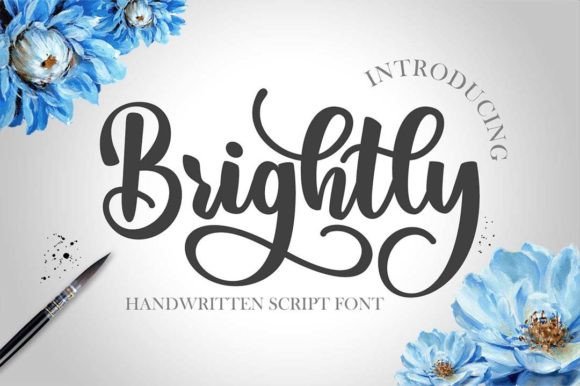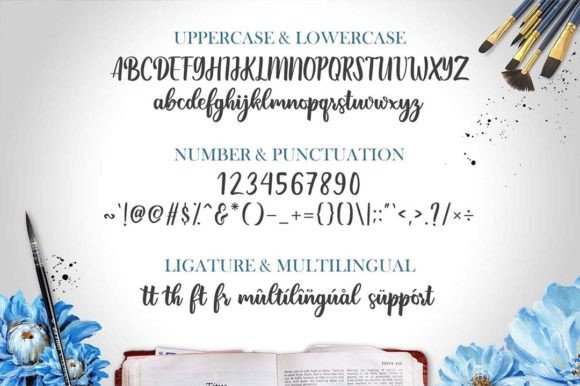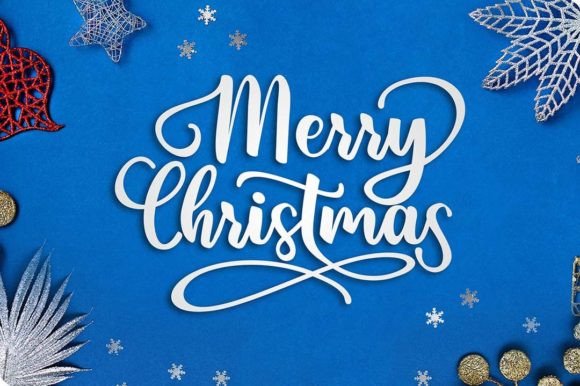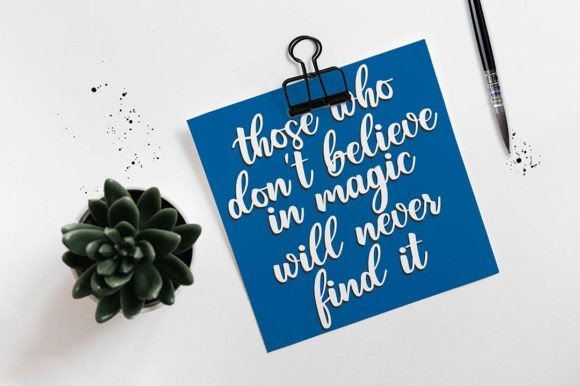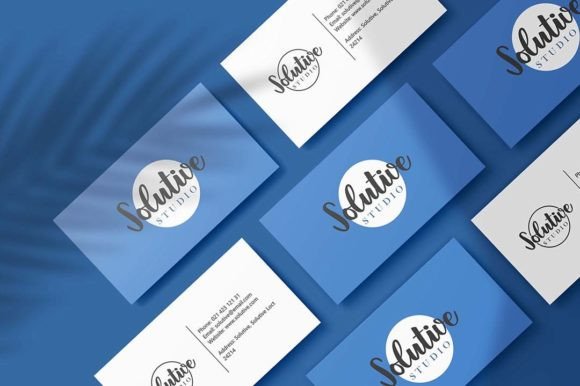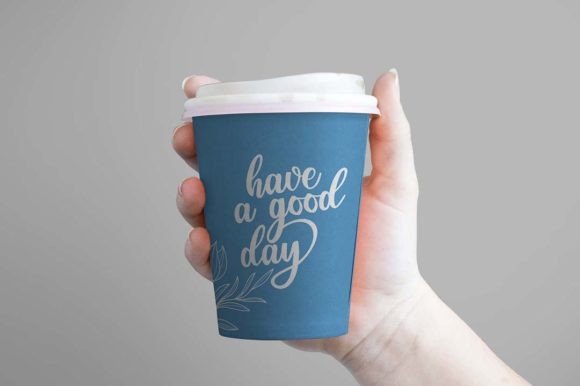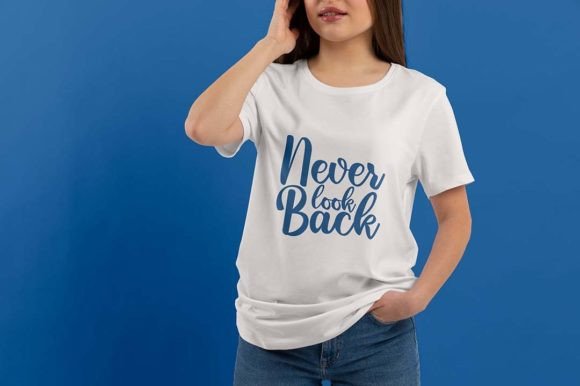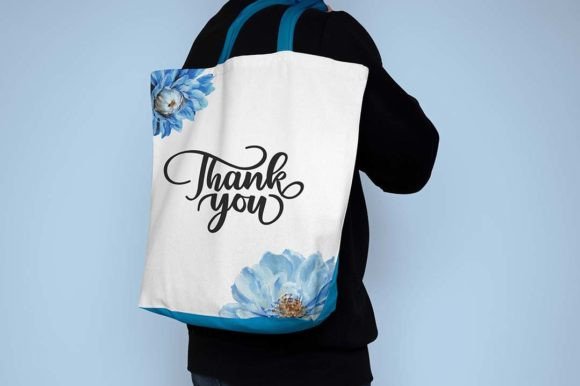
Brightly Font
About Brightly Font
“Brightly” is a romantic and lovely handwritten script font that showcases beautiful curves in every letter. This font radiates a sense of romance and elegance, making it a perfect choice for various design applications. Whether you’re working on wedding invitations, headlines, corporate or brand identity, posters, magazines, books, YouTube, Instagram, or any creative project, “Brightly” adds a touch of charm and sophistication.
The beautiful curves in each letter of “Brightly” contribute to its romantic and handwritten style. This makes the font particularly well-suited for projects that aim to convey warmth, affection, and a sense of intimacy.
“Brightly” is versatile and adaptable, making it suitable for a diverse range of design contexts. Its romantic and lovely nature enhances the visual appeal of wedding invitations, while its readability and elegance make it suitable for corporate and brand identity applications. Additionally, it adds a touch of character to social media posts, magazines, and other creative projects.
The fact that “Brightly” is PUA encoded is a noteworthy feature. PUA (Private Use Area) encoding allows easy access to a variety of glyphs and ligatures, providing users with the flexibility to explore and use unique characters, swashes, and other stylistic elements.
Incorporating “Brightly” into your creative designs allows you to infuse a sense of romance and sophistication. Whether used in print or digital media, this font stands out as a design asset that elevates the overall aesthetic of your projects.
In summary, “Brightly” is not just a font; it’s a romantic and versatile design tool that adds a lovely touch to your creative endeavors. With its beautiful curves and PUA encoding, this font provides both elegance and flexibility for designers seeking to create visually stunning and emotionally resonant designs.